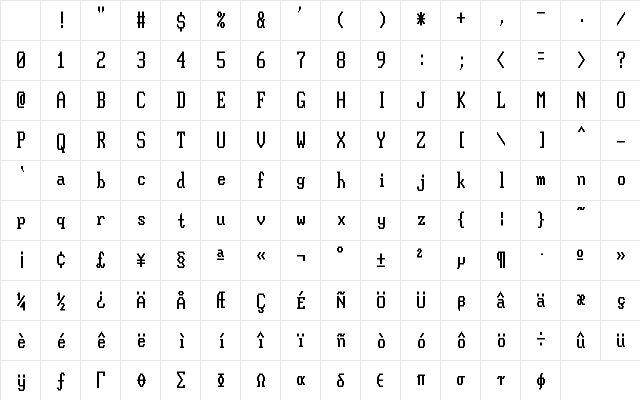
Complete Ac437 Apricot Mono Regular glyph index. Displaying only characters natively supported by Ac437 Apricot Mono Regular font.
Ac437 Apricot Mono uses fixed-width spacing throughout, giving it the structured, systematic character associated with coding environments and technical documentation.
Pro Tip: Use Ac437 Apricot Mono with slightly increased line-height for extended reading - fixed-width spacing can feel dense in longer passages without extra breathing room.